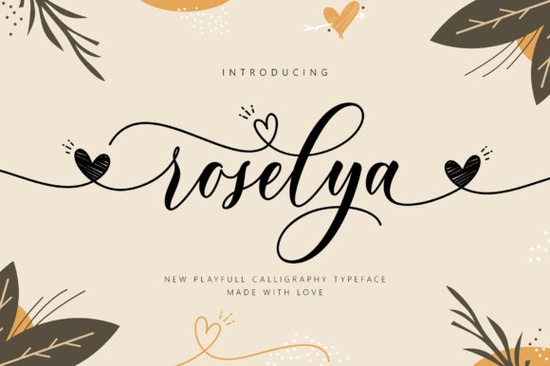
If you’ve been searching for a script font that feels personal, elegant, and just a little playful, Roselya Script Font might be exactly what your next project needs. It’s the kind of typeface that doesn’t just sit on the page it moves with grace, each letter swaying slightly as if caught mid-dance. Whether you’re designing wedding invitations, branding a small boutique, or creating custom merch for print-on-demand, this font adds warmth without overwhelming your layout.
Who is this font best for?
Designers who love hand-lettered charm but need something scalable and consistent will appreciate how Roselya balances personality with practicality. Crafters making SVG files for cutting machines (think Cricut or Silhouette) will find the clean outlines easy to work with. Print-on-demand sellers can use it confidently on mugs, shirts, or tote bags it holds up beautifully at different sizes.
Small business owners looking to add a touch of romance to their packaging, social media graphics, or thank-you cards will also find it versatile. And hobbyists? If you enjoy making birthday cards, scrapbook layouts, or digital planners, Roselya gives your projects that “I spent hours on this” look even if you didn’t.
How does it compare to other romantic scripts?
There’s no shortage of pretty script fonts out there, but not all of them feel this alive. If you like the gentle bounce of Wonder Day, you’ll probably enjoy Roselya’s similar rhythm. For something with a bit more vintage flair, check out Chicago Downton. Or if you want to pair Roselya with a simpler companion font, Kindred offers clean lines that won’t compete for attention.
For ultra-casual vibes, Bee Kind Duo brings a handwritten softness, while Heart Warming leans into cozy, heartfelt energy. Mixing any of these with Roselya can create contrast that keeps your designs dynamic without feeling cluttered.
What kinds of projects work best with Roselya?
- Wedding stationery invitations, menus, place cards, and programs all benefit from its graceful curves.
- Branding for boutiques think bakeries, florists, or handmade skincare lines where elegance matters.
- Social media quotes overlay on photos for Instagram posts that feel personal and polished.
- Custom apparel and gifts works well on T-shirts, mugs, and tote bags with short phrases or names.
- Digital planners and journals headings and section titles come alive with its organic flow.
One thing to keep in mind: because of its flowing nature, Roselya shines brightest in short bursts. Long paragraphs can feel visually heavy, so stick to headlines, subheads, logos, or accent text. Pair it with a clean sans-serif for body copy, and you’ve got a balanced, professional look.
Any tips for getting the most out of this font?
First, play with kerning. Some letter pairs naturally need a little extra space especially if they have long tails or swashes. Most design apps let you adjust this manually, and it’s worth the few extra seconds.
Second, don’t be afraid to mix uppercase and lowercase letters. Roselya’s alternates often look best when you break traditional capitalization rules. Try starting a word with a lowercase letter followed by an uppercase swash it creates unexpected charm.
Third, if you’re using it digitally, consider adding a subtle drop shadow or stroke to help it stand out against textured backgrounds. It’s not always necessary, but it can make a big difference in readability.
Fonts like this don’t just make things look pretty they help you communicate tone and emotion without saying a word. Roselya Script Font does that quietly, sweetly, and with just enough flair to feel special every time you use it.